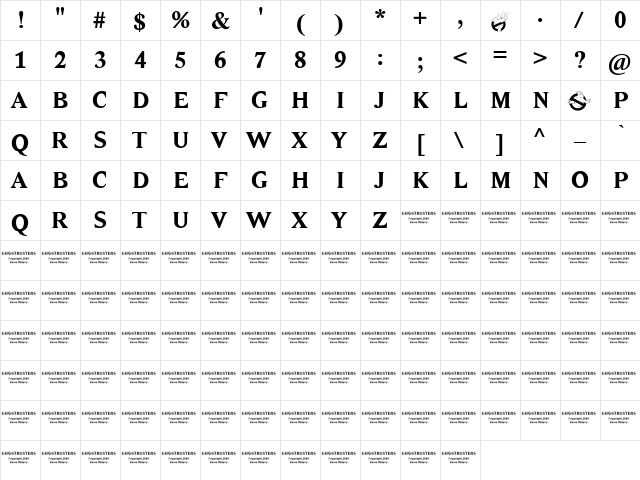
Ghostbusters Regular
Design Context for Ghostbusters Typeface
Ghostbusters offers clean, dependable letterforms without strong stylistic allegiance, making it a practical choice for designers who need flexibility.
Pro Tip: Use Ghostbusters in both headline and body roles to test its range before committing to a single application.